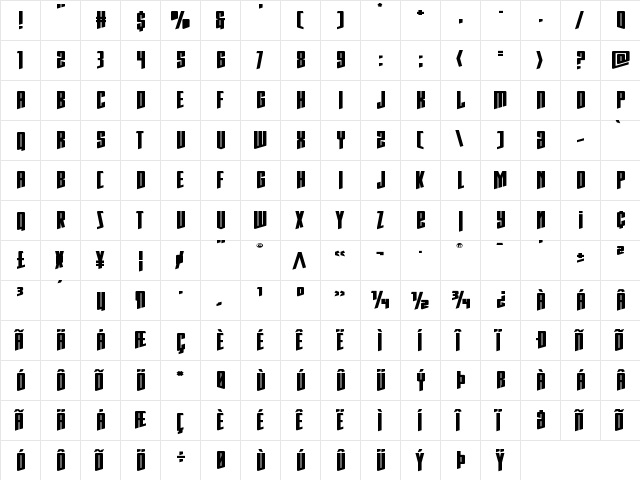
Rhinoclops Xtra-Expanded Regular
Design Context for Rhinoclops Xtra-Expanded Typeface
Rhinoclops Xtra-Expanded is a composed and adaptable typeface that performs quietly and consistently across a wide range of design contexts.